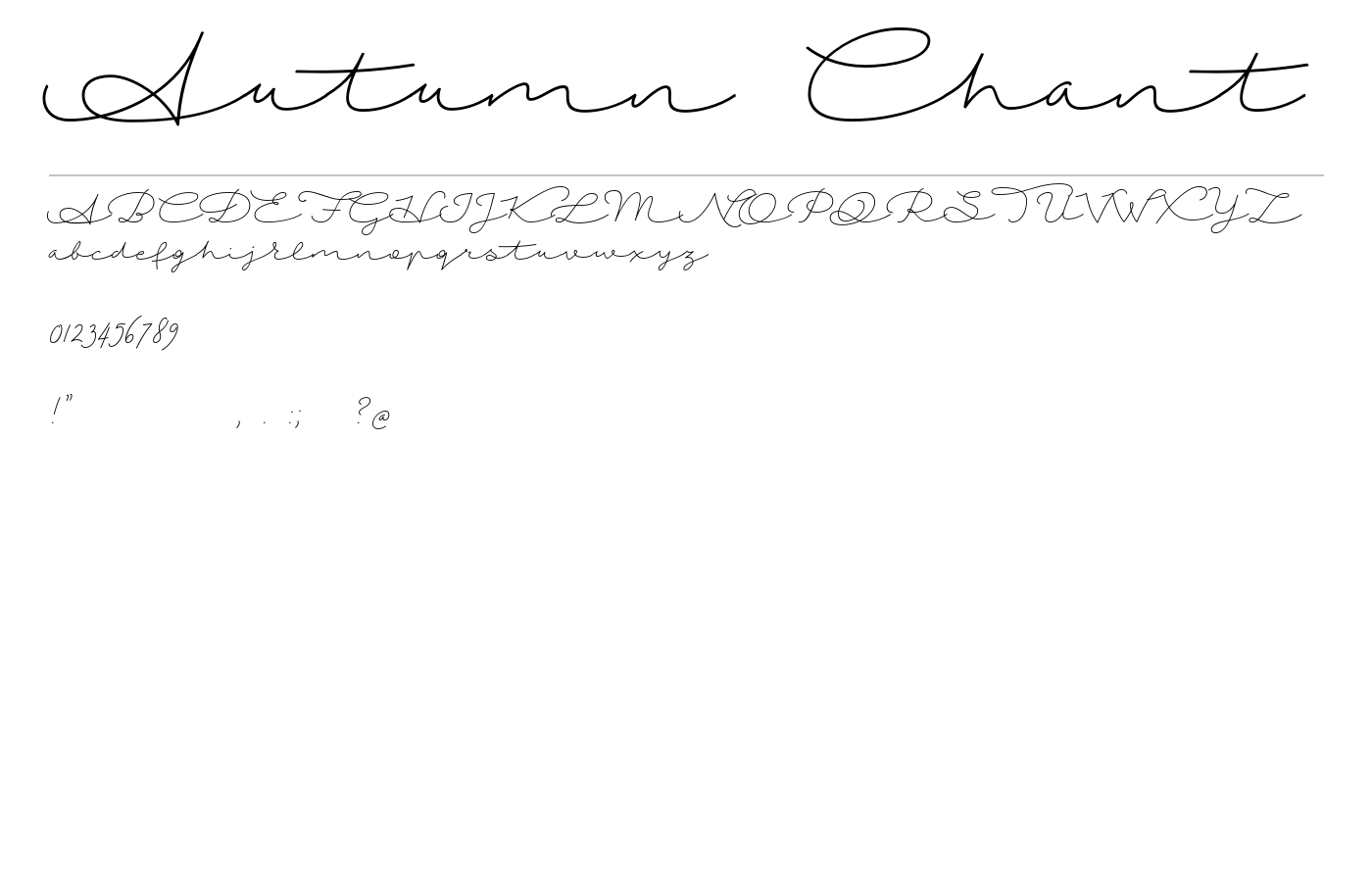
Autumn Chant is a delicate, elegant script font that combines light, flowing strokes with graceful loops and swashes, creating a hand-drawn, calligraphic feel. Its slender weight and airy spacing make it perfect for feminine, romantic, or artistic designs, lending sophistication to invitations, branding, and editorial work. This font shines best in decorative contexts where its unique, whimsical charm can truly stand out.
Autumn Chant Font
About Autumn Chant Font
| Font family | Autumn Chant Font |
| Designer | Roland Hüse |